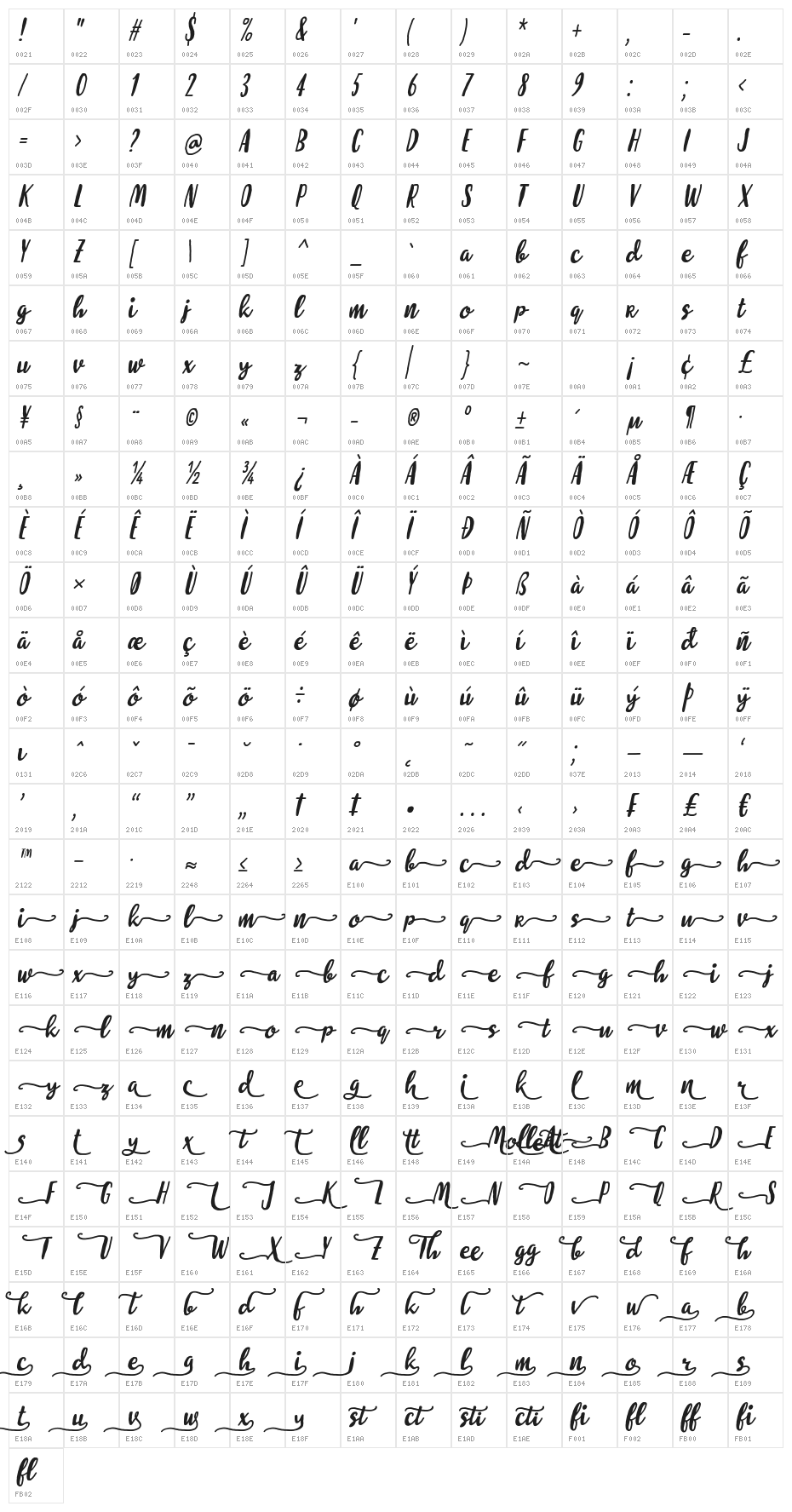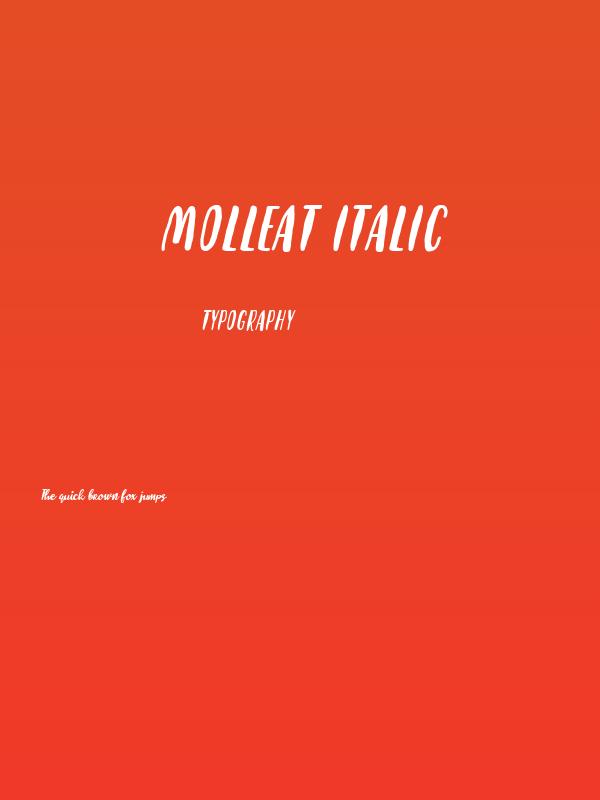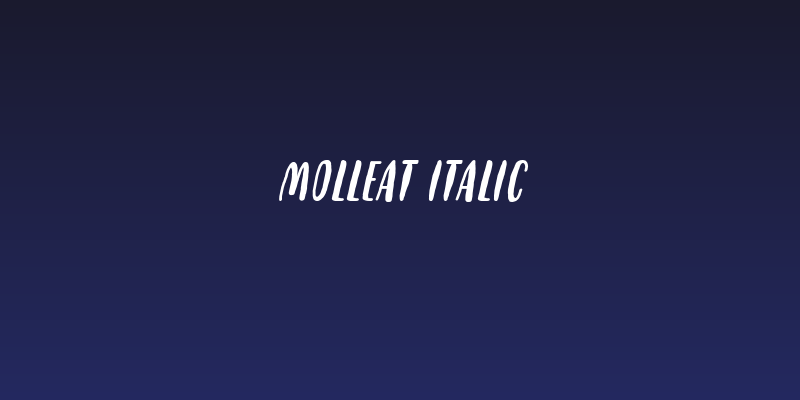
Molleat Italic Font
Molleat Italic Description
This font features a dynamic and expressive style, characterized by its flowing, cursive letterforms that convey a sense of movement and elegance. The strokes are bold and slightly slanted, giving it an italicized appearance that enhances its fluidity. The uppercase letters maintain a consistent height, while the lowercase letters exhibit a playful variation in size and shape, adding to its charm. The numerals and special characters are designed to complement the overall aesthetic, ensuring a cohesive look across all elements. Its brush-like texture and hand-drawn feel make it ideal for projects that require a personal touch.